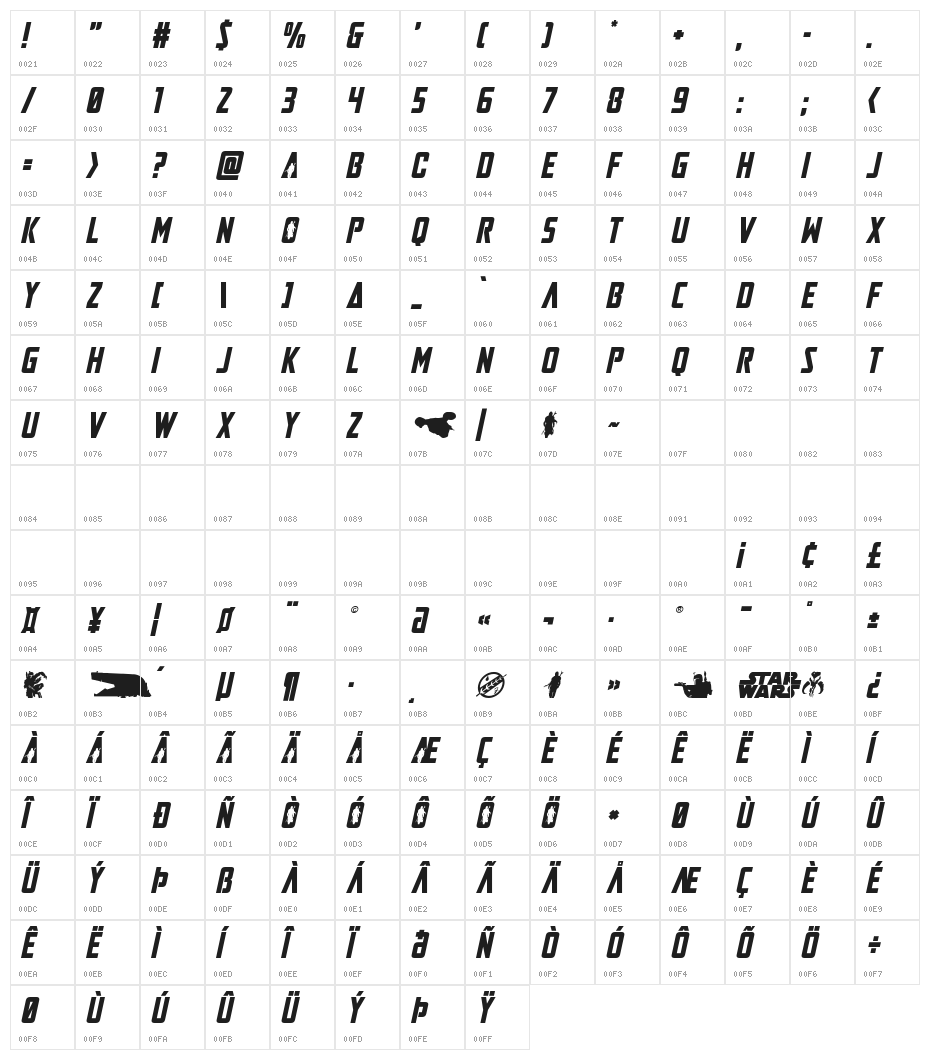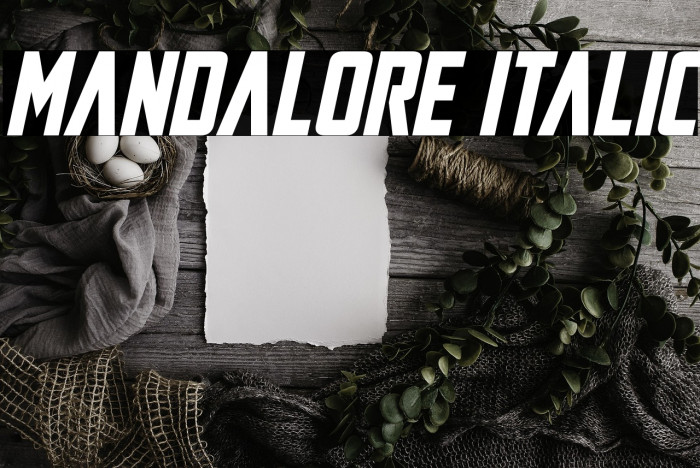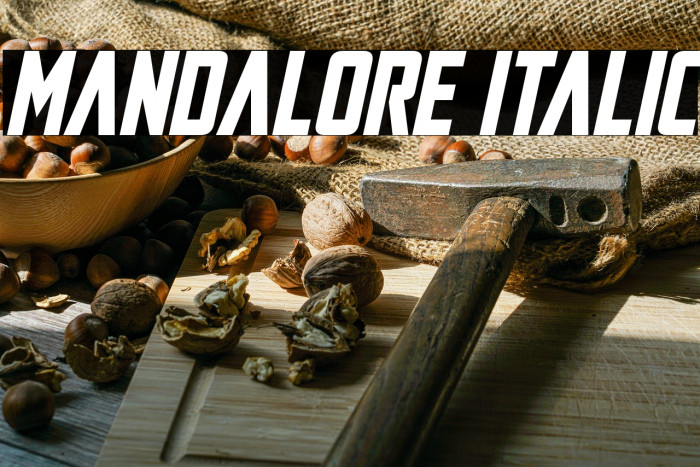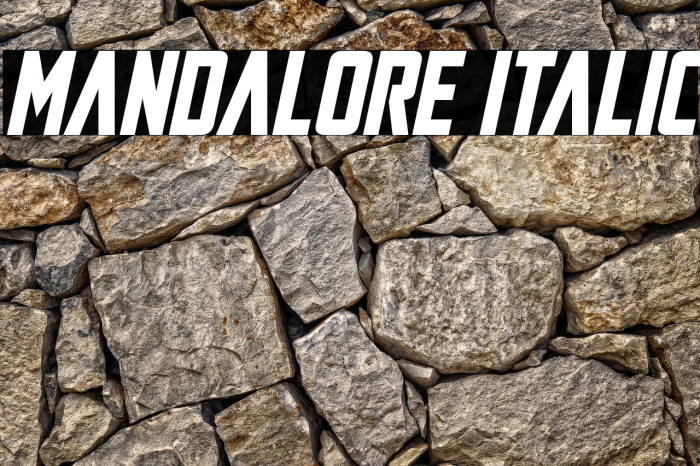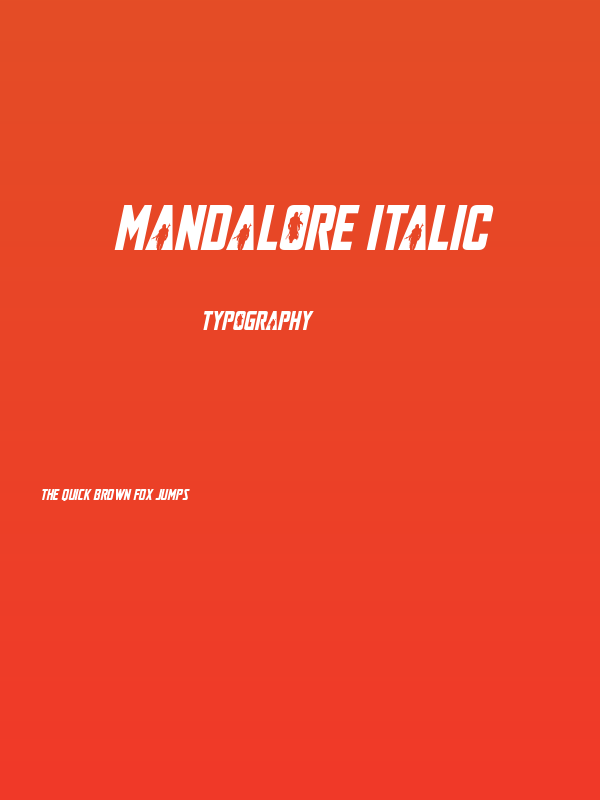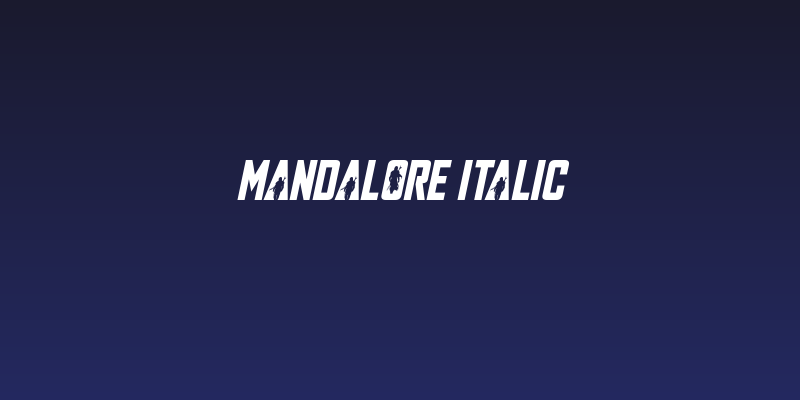
Mandalore Italic Font
Mandalore Italic Description
This font features a bold and dynamic design with a futuristic flair. The characters are italicized, giving a sense of motion and energy. The strokes are thick and consistent, contributing to a strong visual impact. The angular shapes and sharp edges of the letters enhance its modern and aggressive appearance. The font includes both uppercase and lowercase letters, numerals, and a variety of special characters. Its distinctive style makes it suitable for projects that require a bold statement.
| Proposed Projects | Ideal for sci-fi themed designs, video game titles, movie posters, and branding that requires a strong, modern look. |